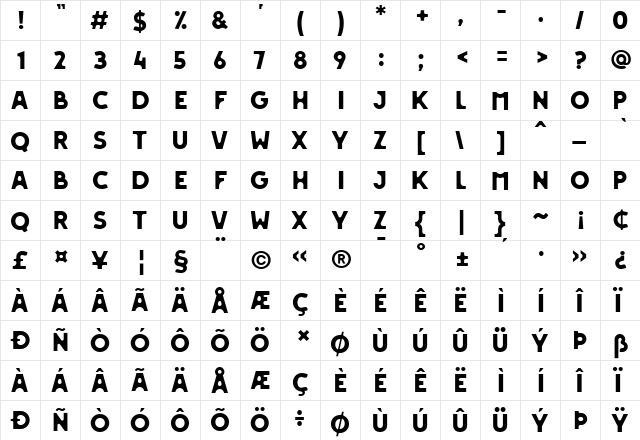
FORTA Regular
| Designer | Andrzej Wr?REATIVE HANDS |
Design Context for FORTA Typeface
FORTA takes a measured approach to typography — its balanced proportions and neutral character make it a reliable workhorse for both digital and print work.